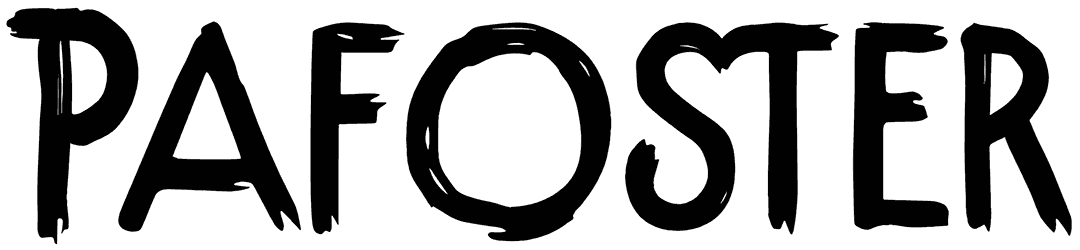
Pafoster Font
Using a display font such as this item will be a perfect pick to create a cool café sign or something like that. The handwritten characters of this brush font are going to add a realistic and appealing mood to your creative projects. Pafoster font doesn’t support lowercase letters, but it makes up by offering two sets of capitals.